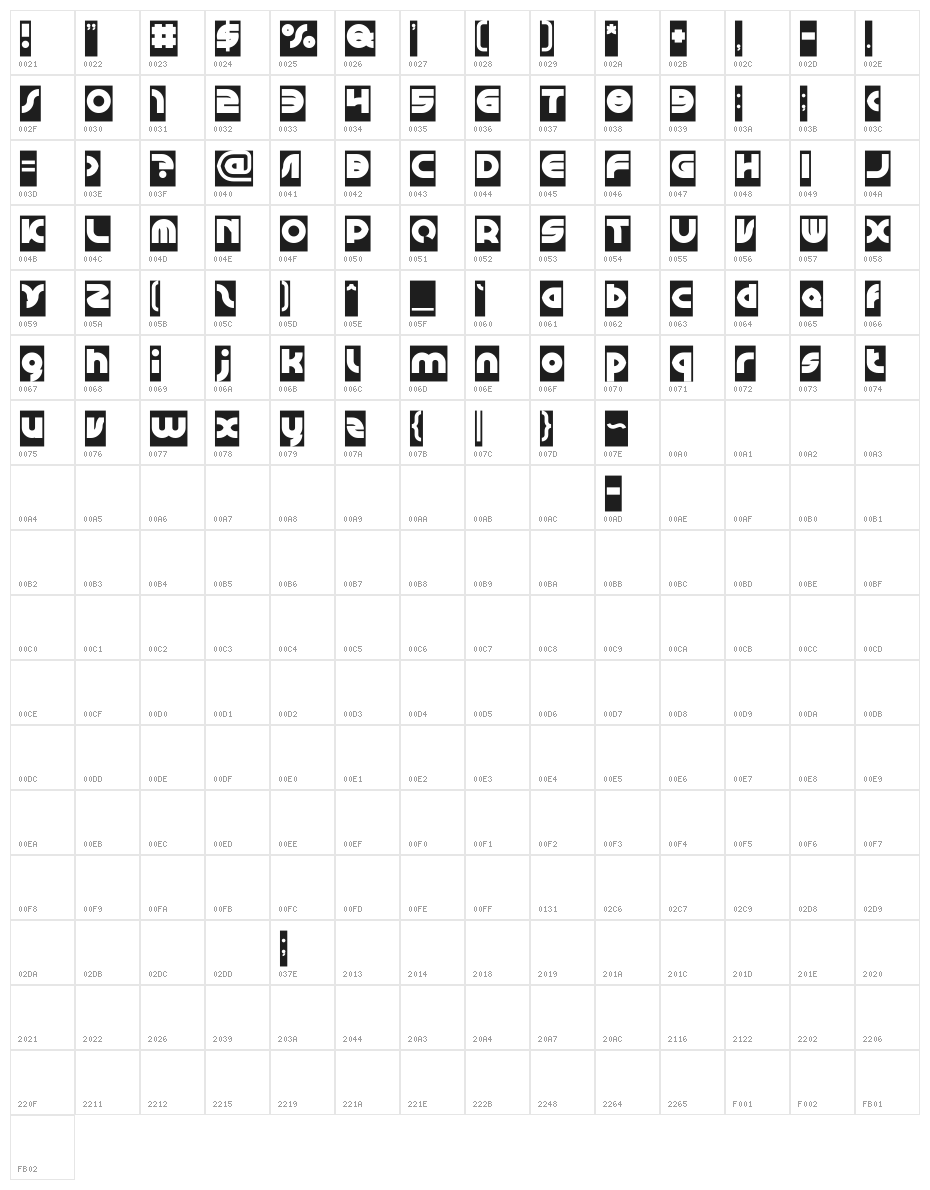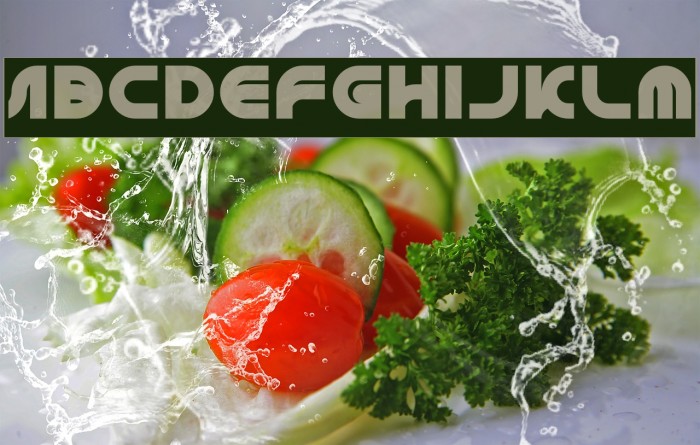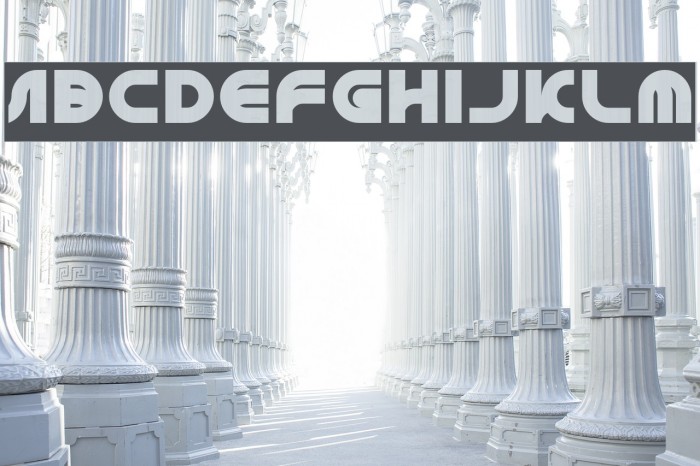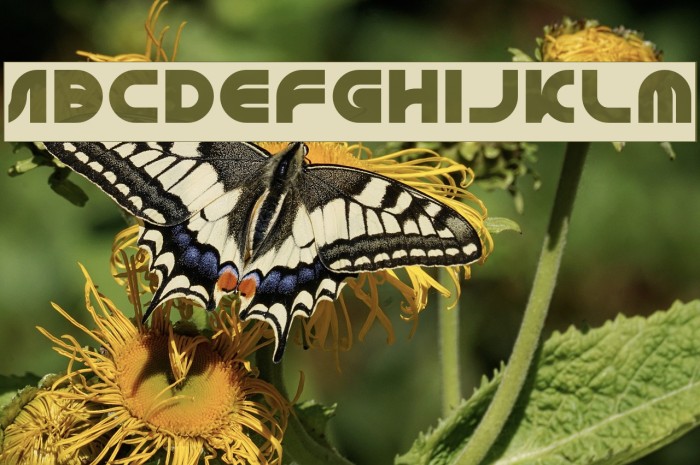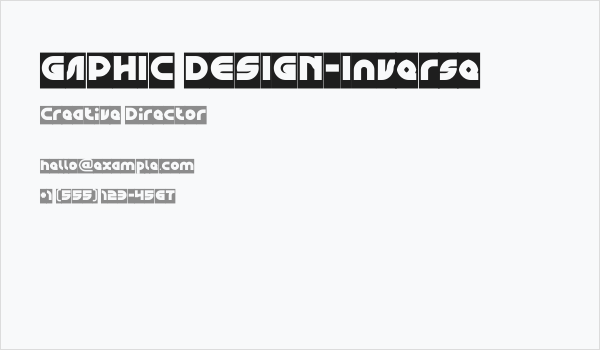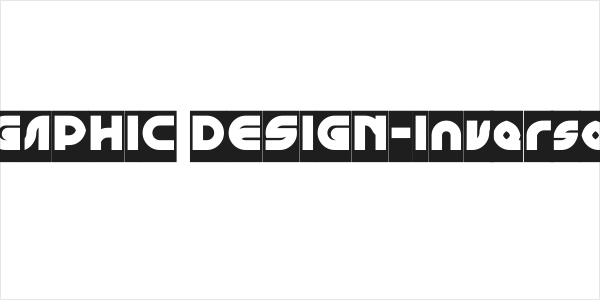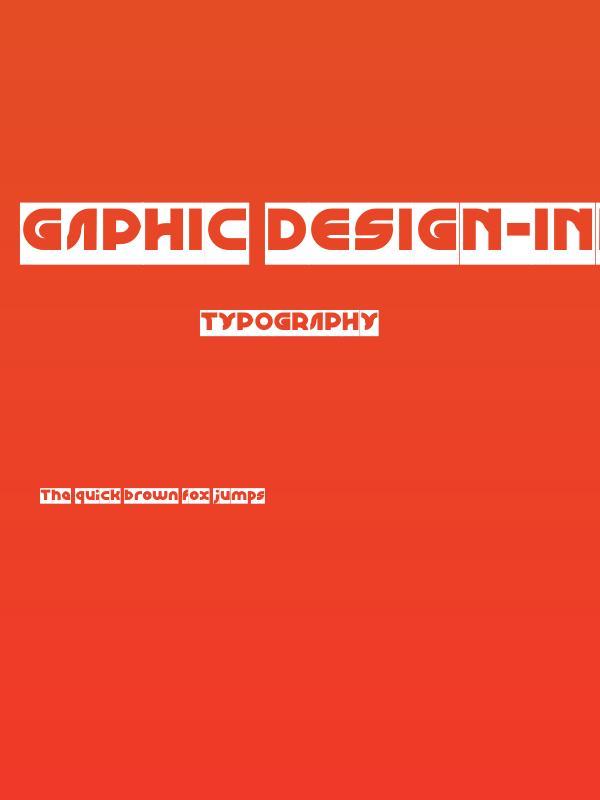
GAPHIC DESIGN-Inverse Font
GAPHIC DESIGN-Inverse Description
This font features a bold and geometric design with a futuristic flair. The characters are constructed with sharp angles and curves, creating a dynamic and eye-catching appearance. The uppercase and lowercase letters maintain a consistent style, with a strong emphasis on symmetry and balance. The numbers and special characters are equally bold, ensuring uniformity across all glyphs. The font's unique style makes it ideal for projects that require a modern and innovative look, such as technology branding, sci-fi themes, or contemporary art displays.
| Proposed Projects | Ideal for technology branding, sci-fi themes, contemporary art displays, and modern advertising. |